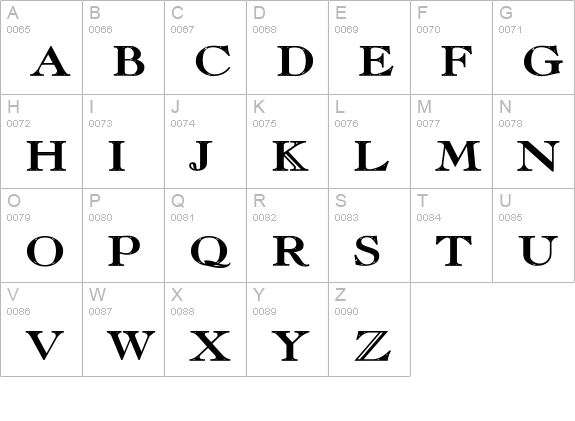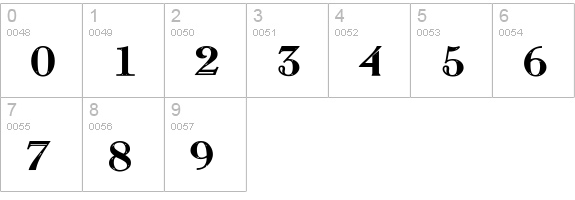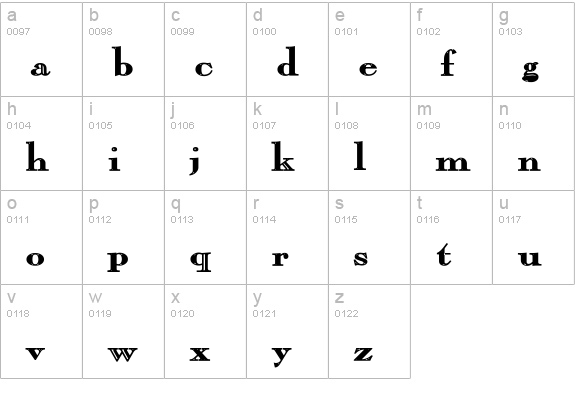
Pinchi-Bold is a strong, high-contrast variant in the Pinchi typeface family \xE2\x80\x94 well suited to headlines, attention-grabbing titles, and strong calls-to-action.
Pinchi-Bold is a modern and stylish font that exudes confidence and boldness. With its clean lines and strong presence, this font is perfect for making a statement in any design project. Whether you're creating a logo, designing a website, or crafting eye-catching headlines, Pinchi-Bold will add a touch of sophistication and professionalism. What sets Pinchi-Bold apart is not only its striking aesthetic but also its accessibility. This font is available for free, allowing designers and creatives of all levels to access its beauty without any financial constraints. It's a font that believes in democratizing design and empowering individuals to unleash their creativity. To download Pinchi-Bold, simply visit FontsMarket.com, a reputable platform that offers a wide range of high-quality fonts. With just a few clicks, you can have this remarkable font in your design arsenal, ready to elevate your projects to new heights. So why wait? Embrace the power of Pinchi-Bold and bring your designs to life today.